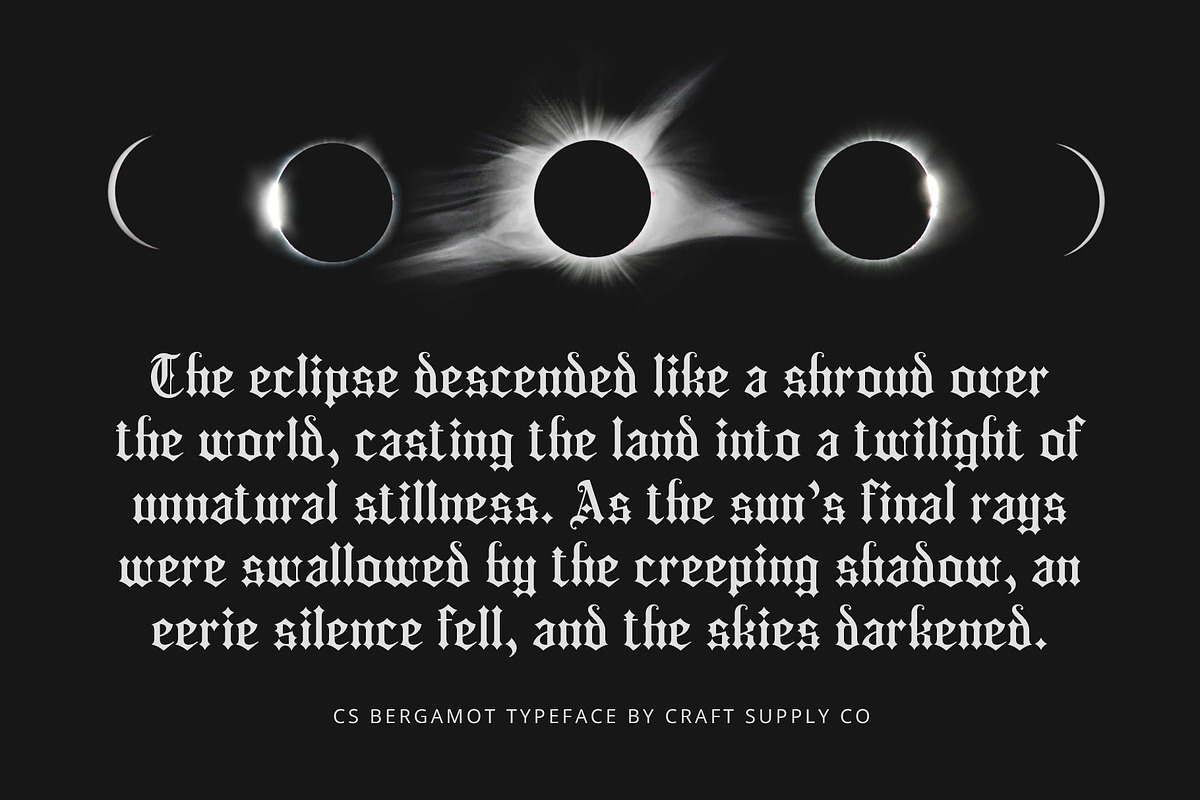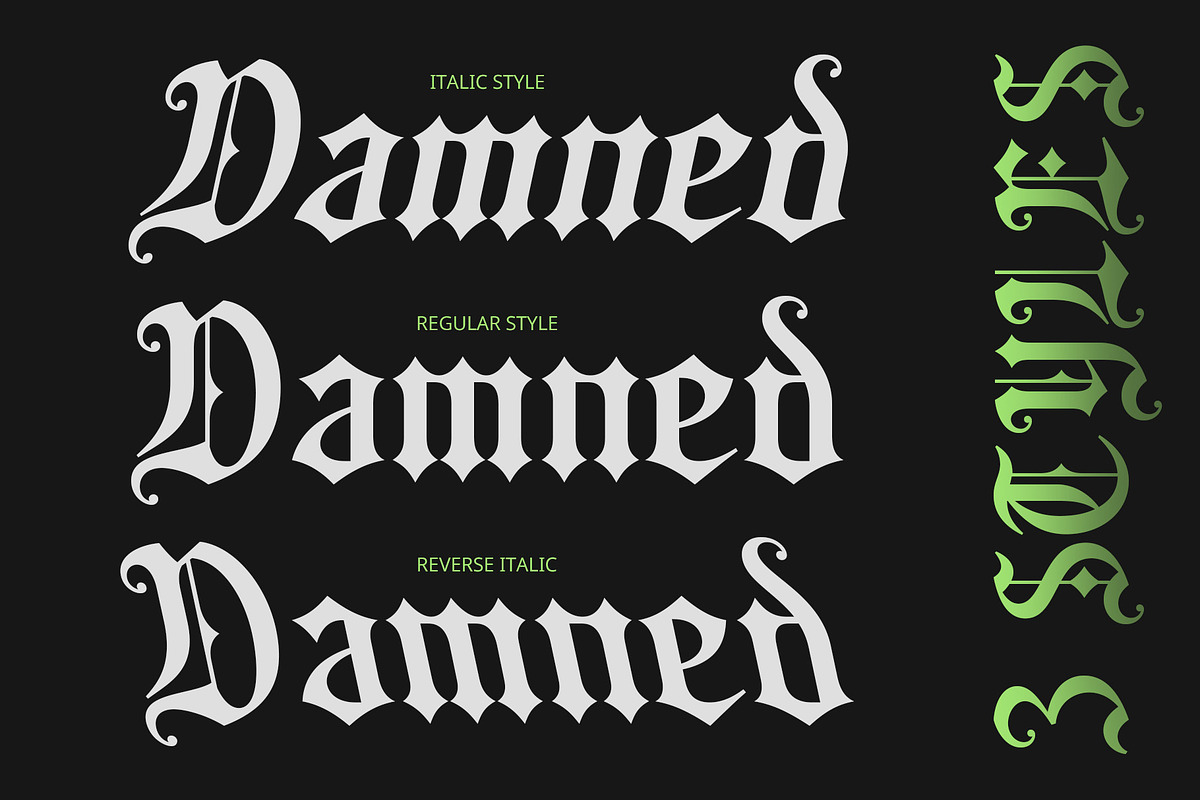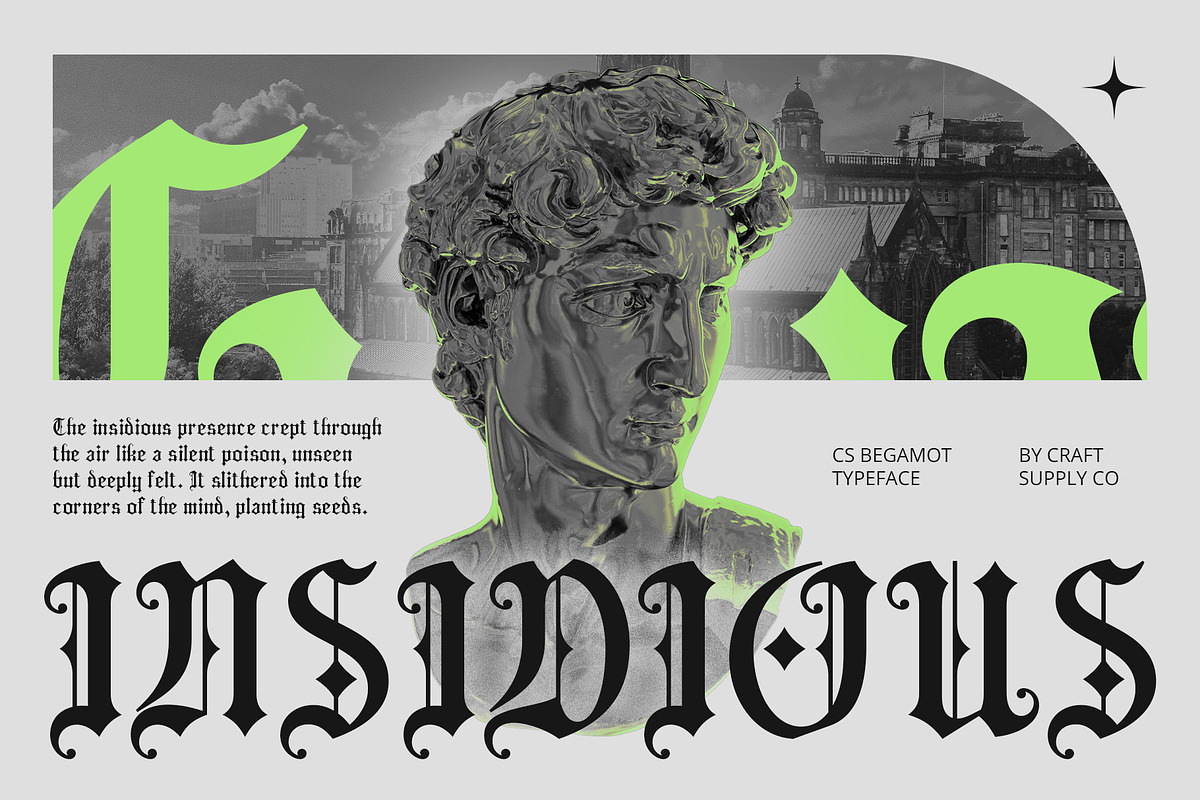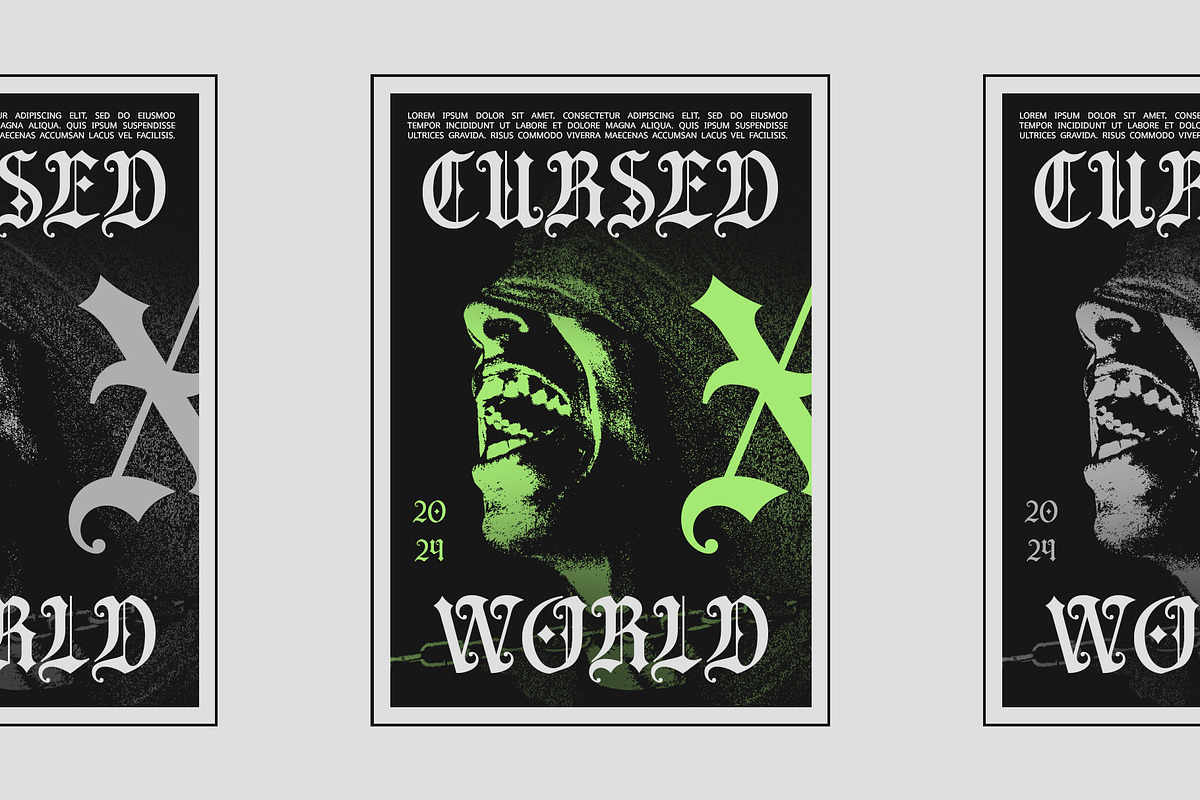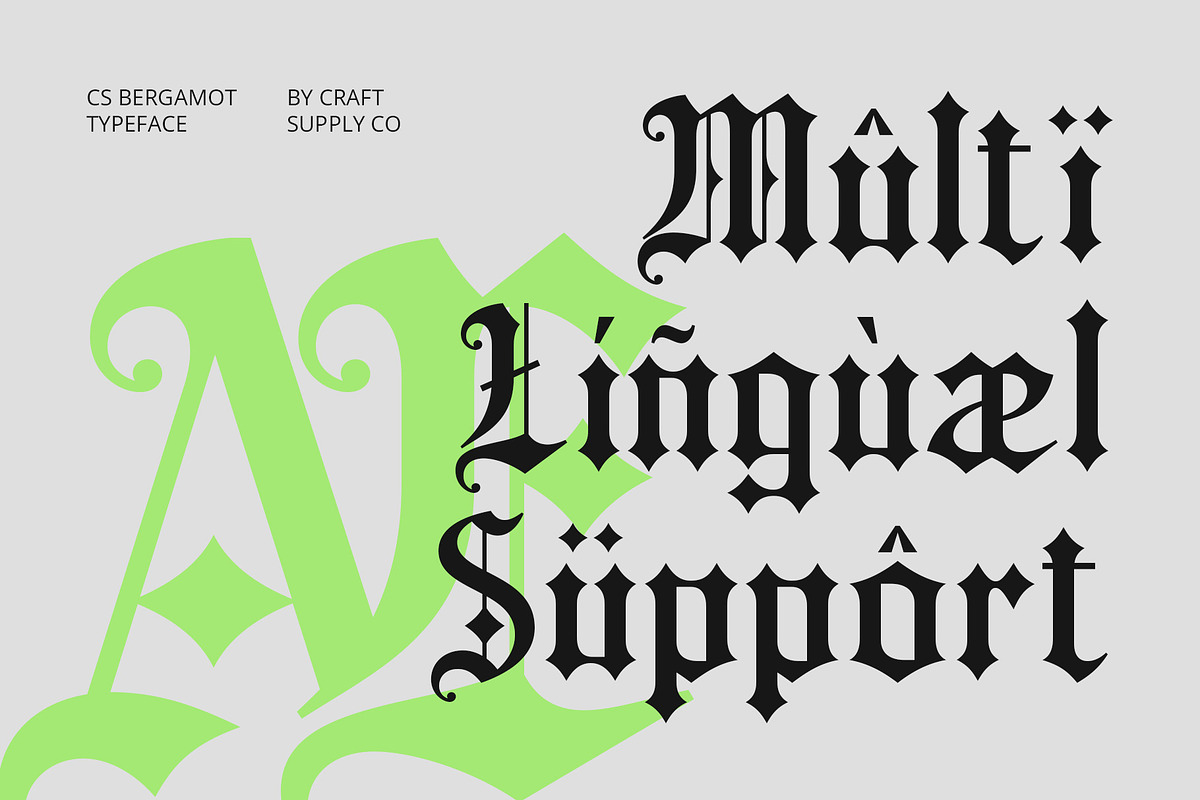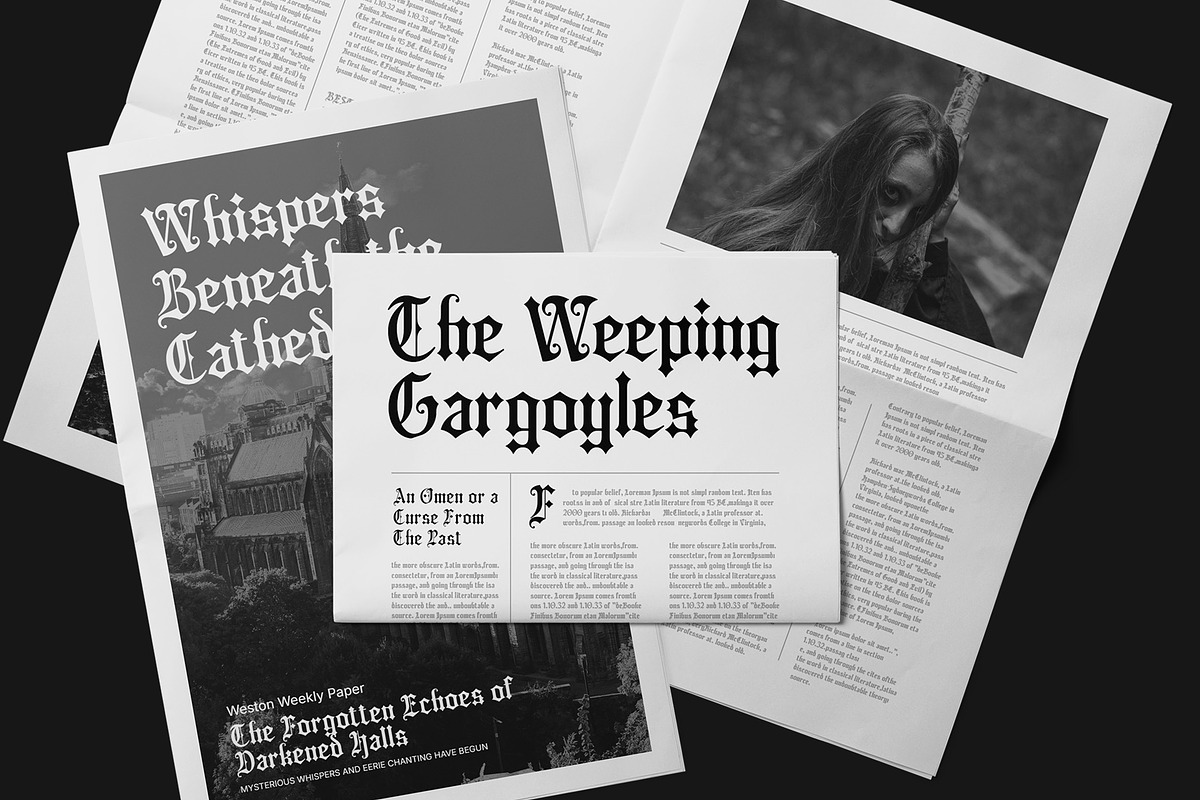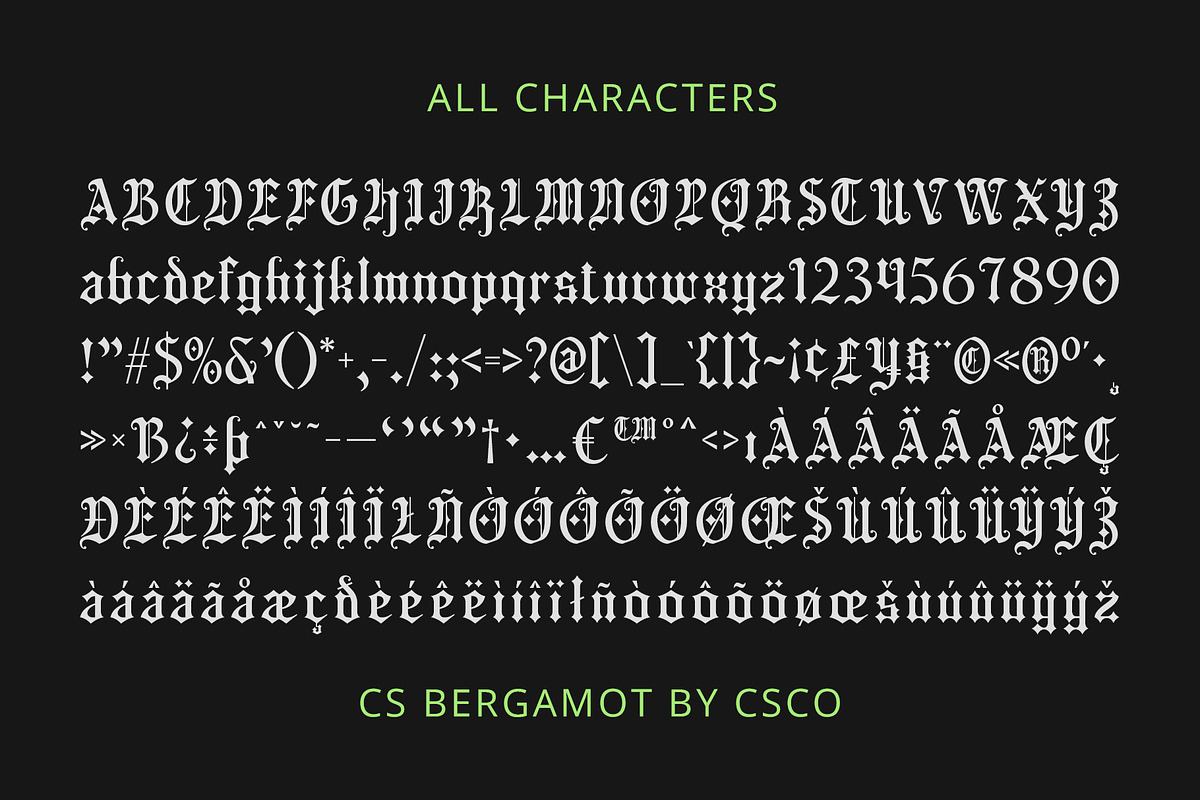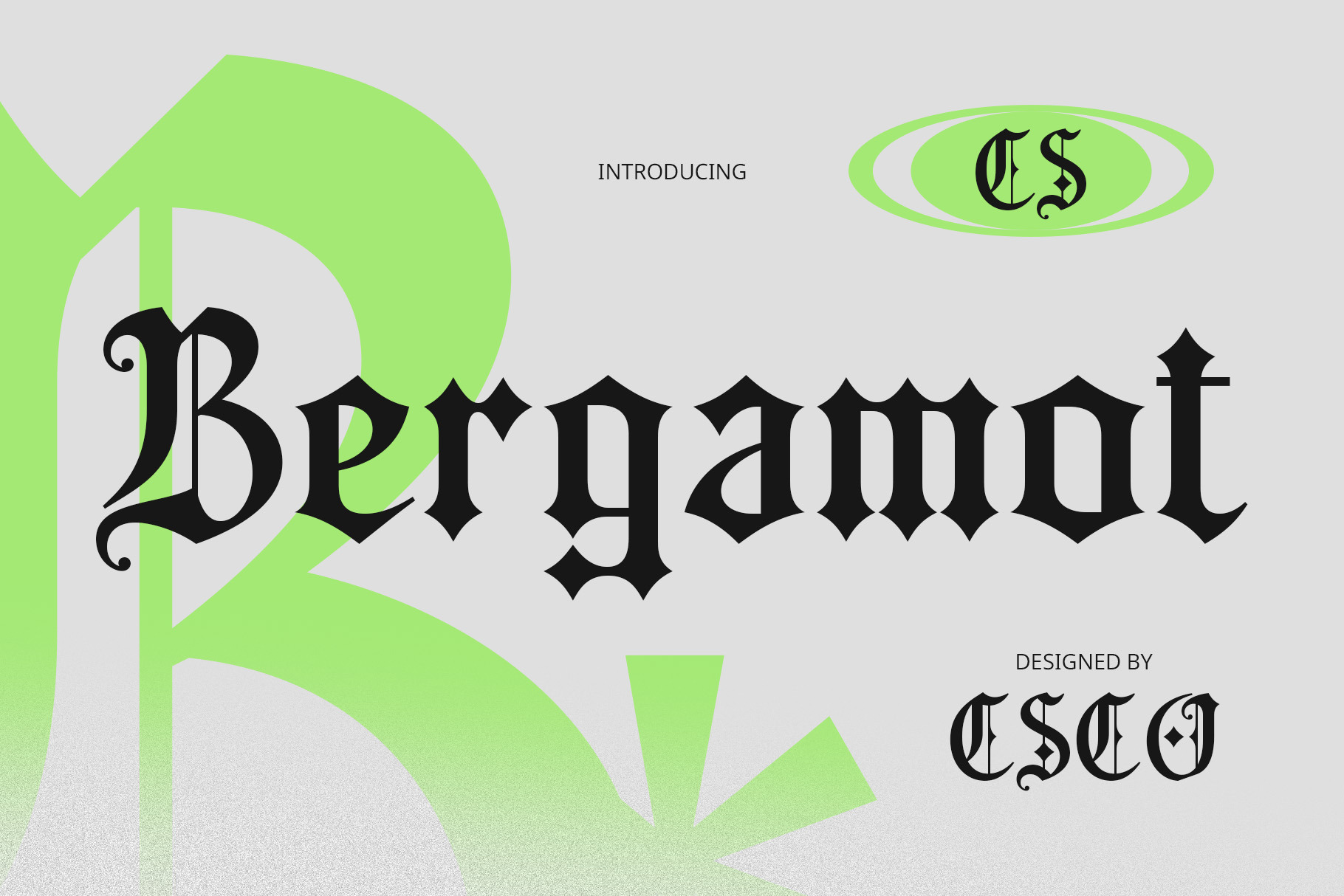
CS Bergamot – Blackletter Font
CS Bergamot – Blackletter Font: Bold and Decorative with Historical Charm
Blackletter Display with a Medieval Influence CS Bergamot is a striking blackletter display font inspired by the intricate details of medieval European manuscripts. Its bold, decorative typeface combines sharp angles, thick vertical lines, and elaborate ornamentation, evoking a strong sense of drama and history. Perfect for designs that require a commanding presence, this font delivers a powerful visual impact.
Classic, Formal, and Gothic Aesthetic Ideal for projects that call for a classic, formal, or gothic touch, CS Bergamot is a versatile choice for various applications. Its bold blackletter style is perfect for metal concert posters, traditional beer logos, or vintage-inspired print materials, offering a timeless and elegant look that stands out in any design.
Intricate Ornamentation for Visual Depth With its detailed, ornate character, CS Bergamot brings an extra layer of sophistication to your designs. The intricate ornamentation of this blackletter font creates visual depth, making it ideal for projects that need to communicate a rich, historical narrative or a strong, dramatic mood.
A Bold Statement for Modern and Vintage Designs While rooted in ancient history, CS Bergamot’s blackletter style remains relevant in contemporary design. Its bold and distinctive visual elements add character and intensity to modern branding, posters, and editorial layouts, offering a unique blend of tradition and innovation for character-driven projects.
- CS Bergamot Regular
- CS Bergamot Italic
- CS Bergamot Reverse Italic